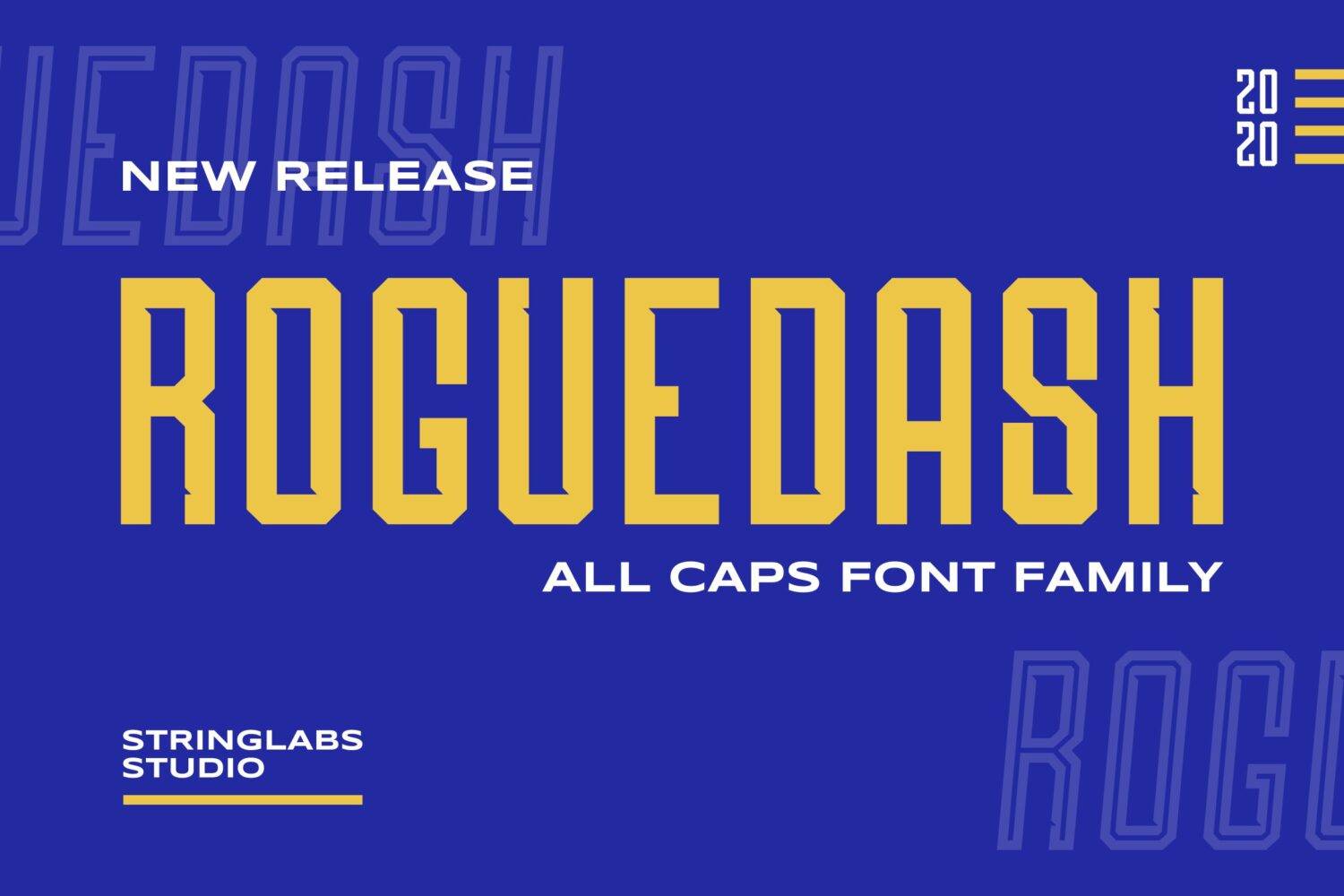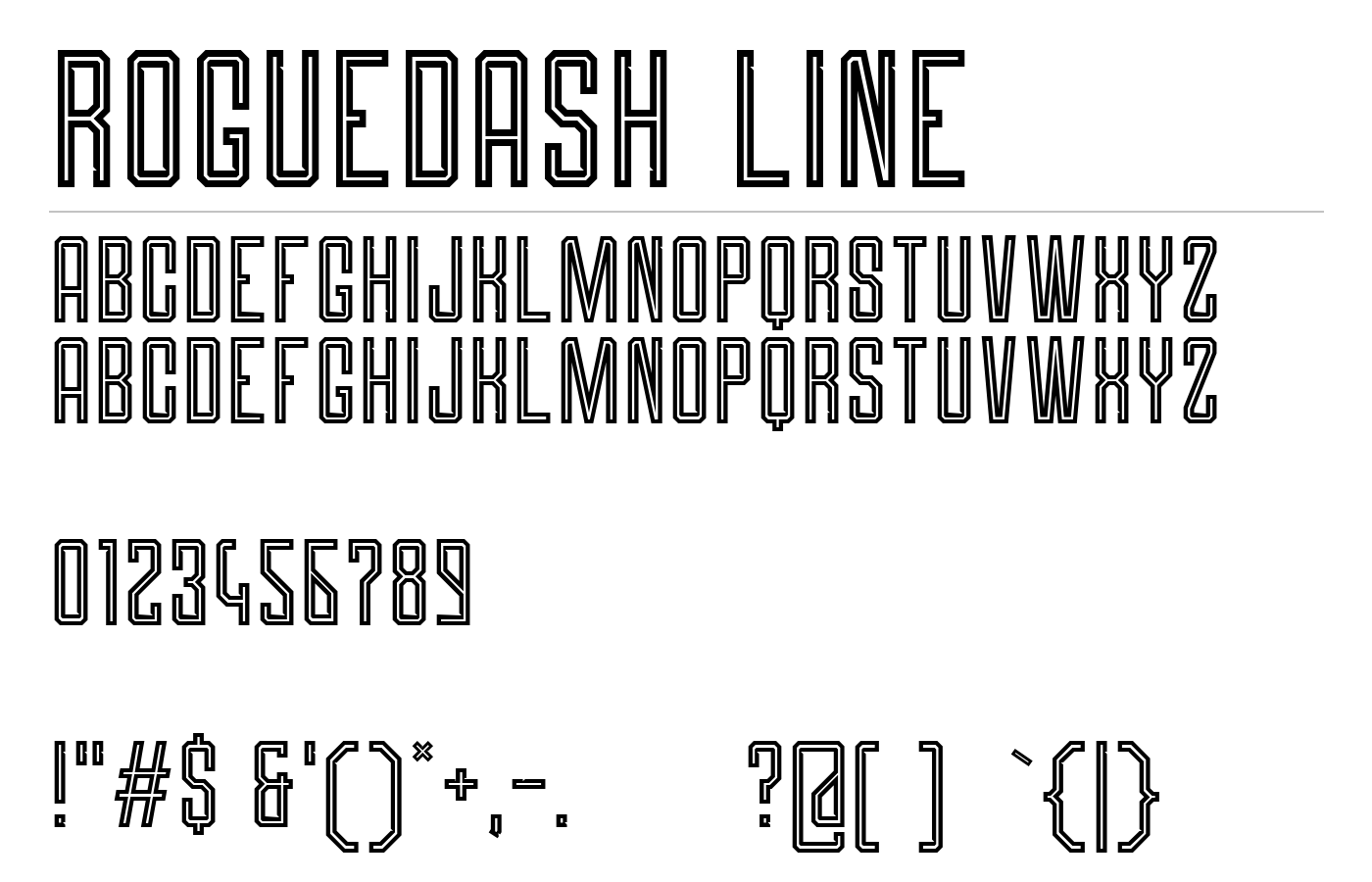
Roguedash Font is a tall, narrow sans serif with a modern and geometric feel, featuring a distinctive double-line outline that adds a sense of depth and style. Its clean, sharp edges and condensed letterforms make it perfect for striking headlines, branding, and poster designs where a bold, contemporary look is desired. This font works well in urban or tech-inspired projects, lending a sleek yet edgy personality to any creative work.
Roguedash Font